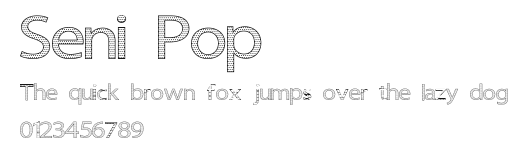
• Font Name: Seni Pop
• Full Font Name: Seni Pop
• Designer: cenz qobbal
• Manufacturer: cenz qobbal
About Seni Pop.ttf
Seni Pop.ttf is a modern, elegant sans-serif font designed for ultimate readability and visual harmony. Perfect for branding, headlines, web design, and print materials.